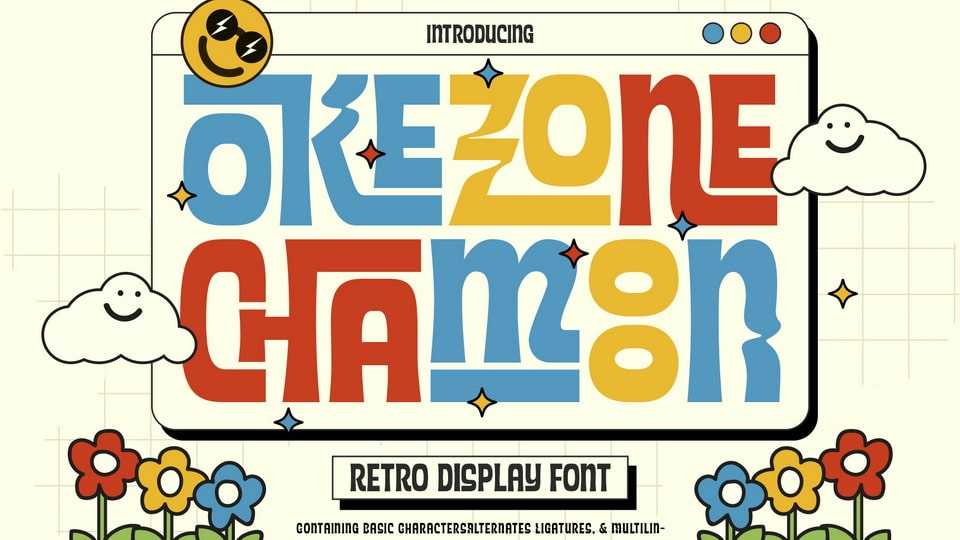
Download Okezone Chamoon font, a groovy display typeface, the perfect blend of retro 80s style, funky cartoon vibes, and a dash of modern flair. With its wavy lines, Okezone Chamoon is the ultimate choice for designers looking to infuse a playful and nostalgic touch into their projects.